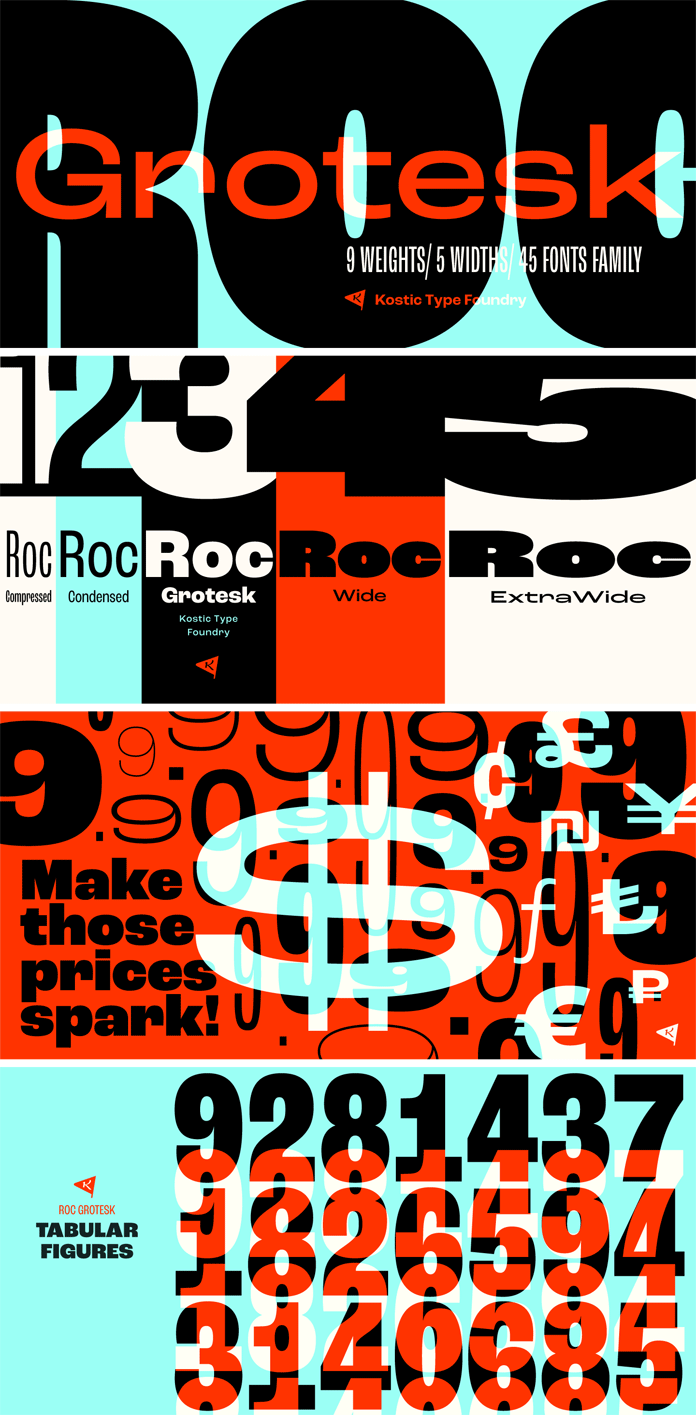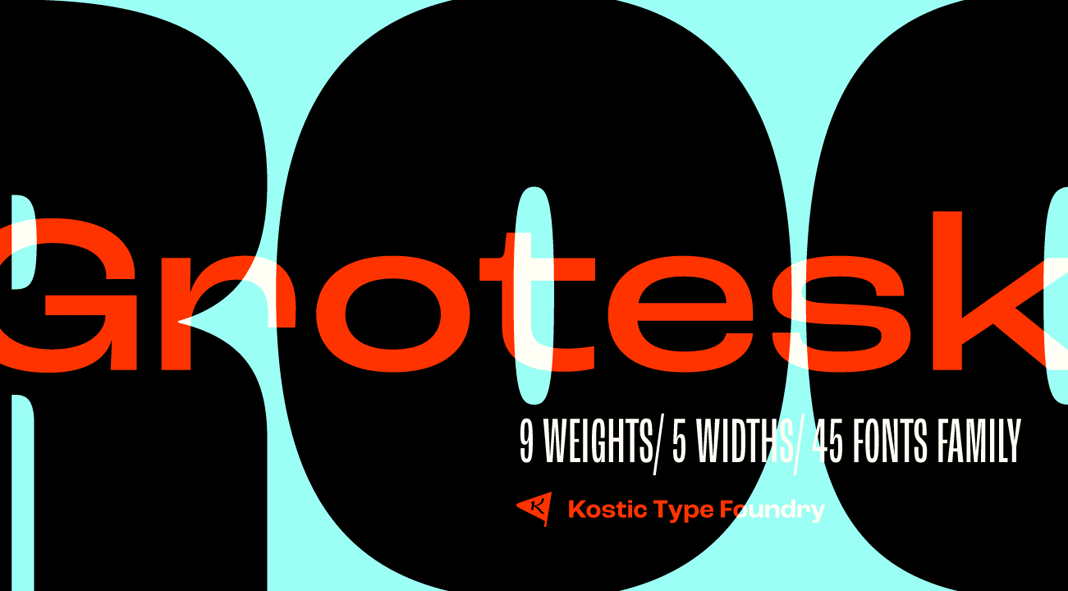
Say hello to the Roc Grotesk font family, a sans serif typeface that draws inspiration from American wood types as known from the end of the 19th century.
Designed and published by the Kostic Type Foundry, the Roc Grotesk font family comes with 45 fonts including nine weights in five widths. Roc Grotesk’s extensive character set supports Western and Central European languages, as well as Turkish. The different widths (Compressed, Condensed, Normal, Wide, and ExtraWide) allow for the font to be used in various settings but primarily for display use. Please read more below or click on the following link if you want to purchase this modern sans-serif font family.
The further the weight progresses from Thin to Heavy, the more apparent the stroke contrast becomes. The strokes of Roc Grotesk are deliberately exaggerated in heavier weights; this is most noticeable in Roc’s uppercase E and R of Black and Heavy style. Roc also has a large x-height with relatively short descenders and ascenders. Additionally, no uppercase letter falls below the baseline so that all lines of all-caps text can be placed close together on posters or headlines if necessary. Generous spacing is seen in Regular style as it will likely be used for setting long passages of text.
The Bold style of the Roc Grotesk typeface is spaced in a way that creates a text column width similar to Regular. Tabular figures have matching widths, so for example, you could make one row of numbers stand out in a data column without disrupting the vertical order of the table. The lowercase g and r come with alternatives to give designers what they typically expect from Grotesk typefaces. You can access the single-story g and cut-off r via OpenType features